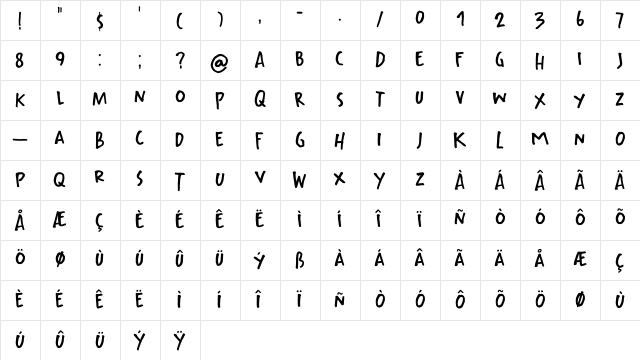
Widdershins DEMO Regular
| Foundry | David Kerkhoff |
| Designer | David Kerkhoff |
Design Context for Widdershins DEMO Typeface
Widdershins DEMO is a composed and adaptable typeface that performs quietly and consistently across a wide range of design contexts.